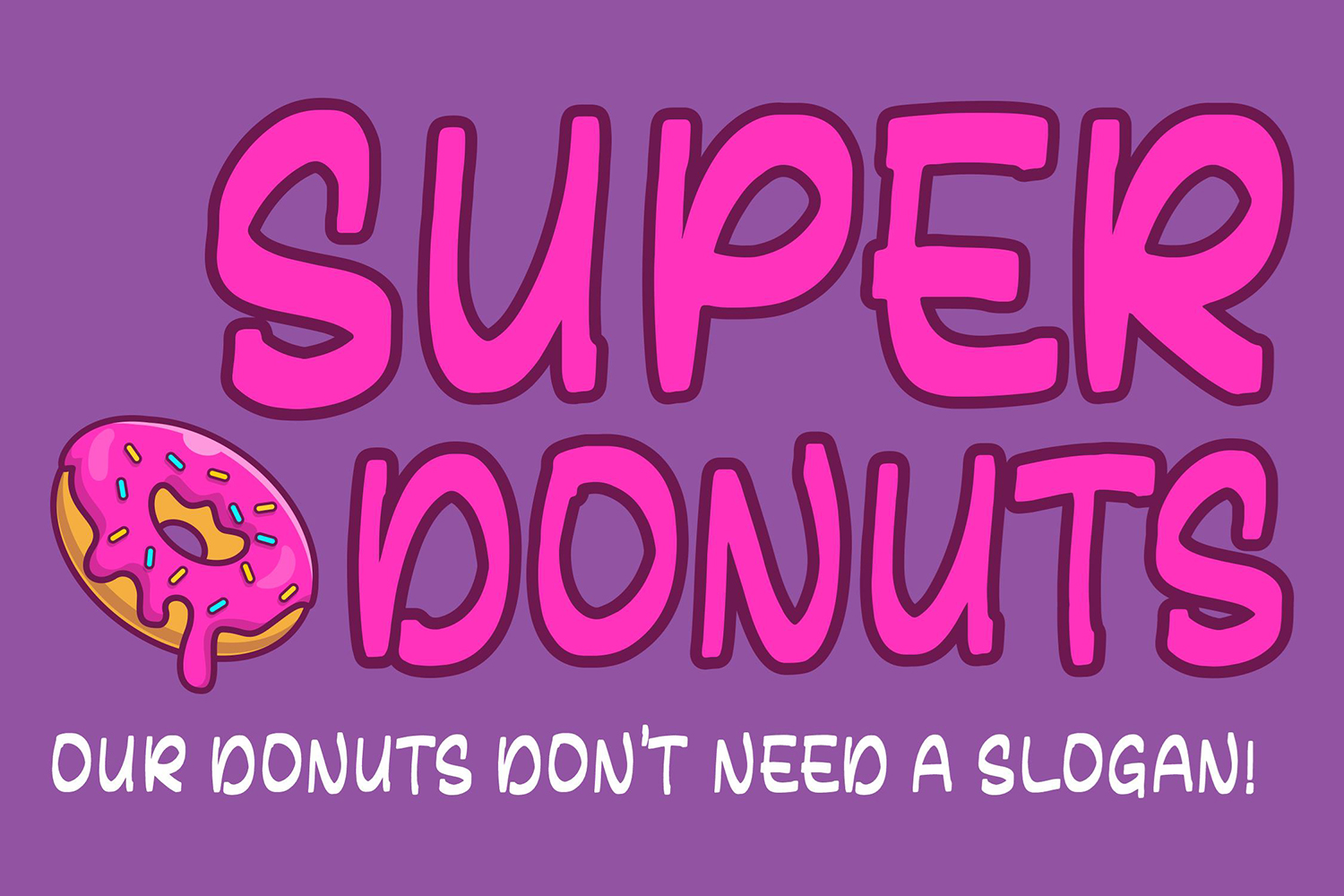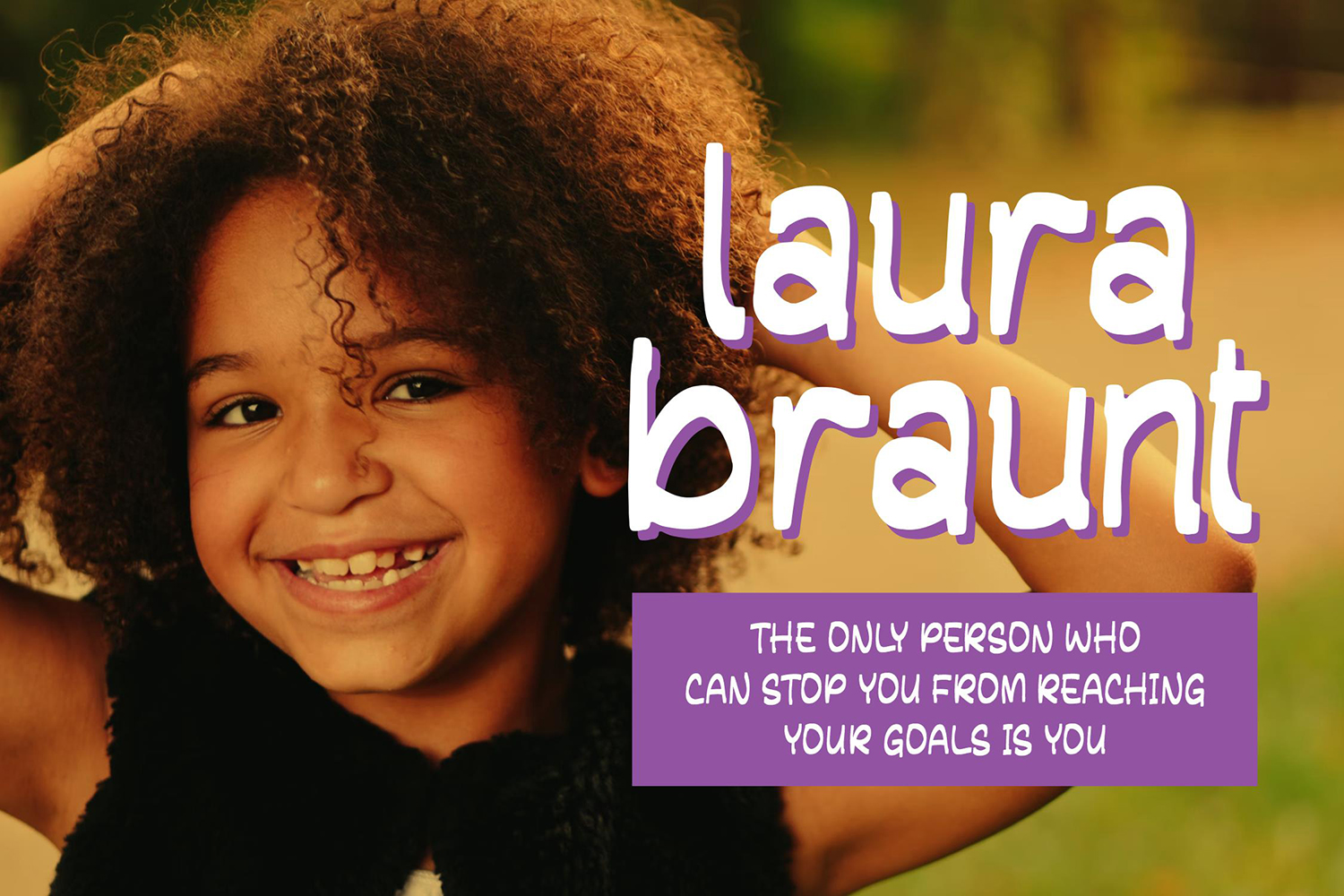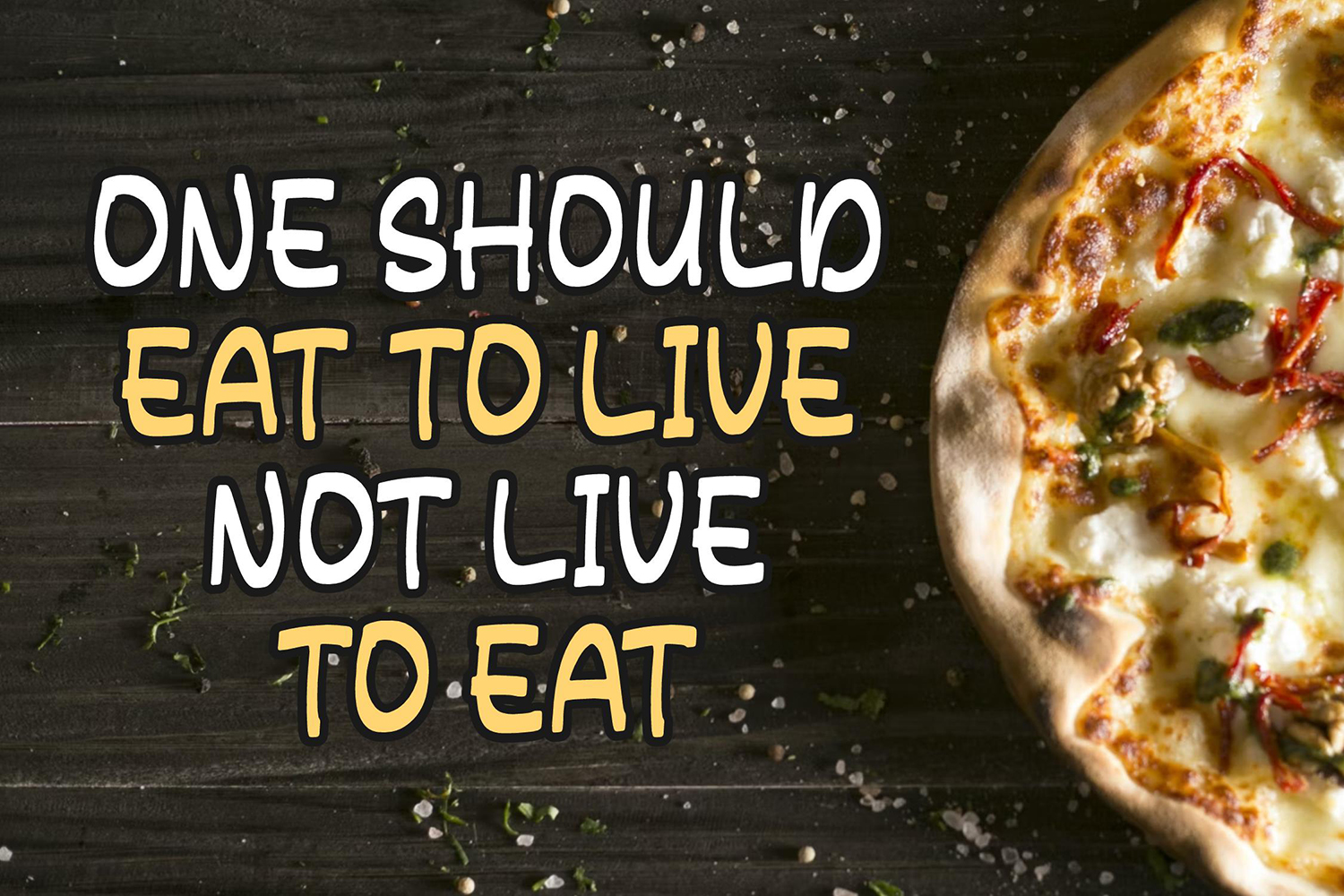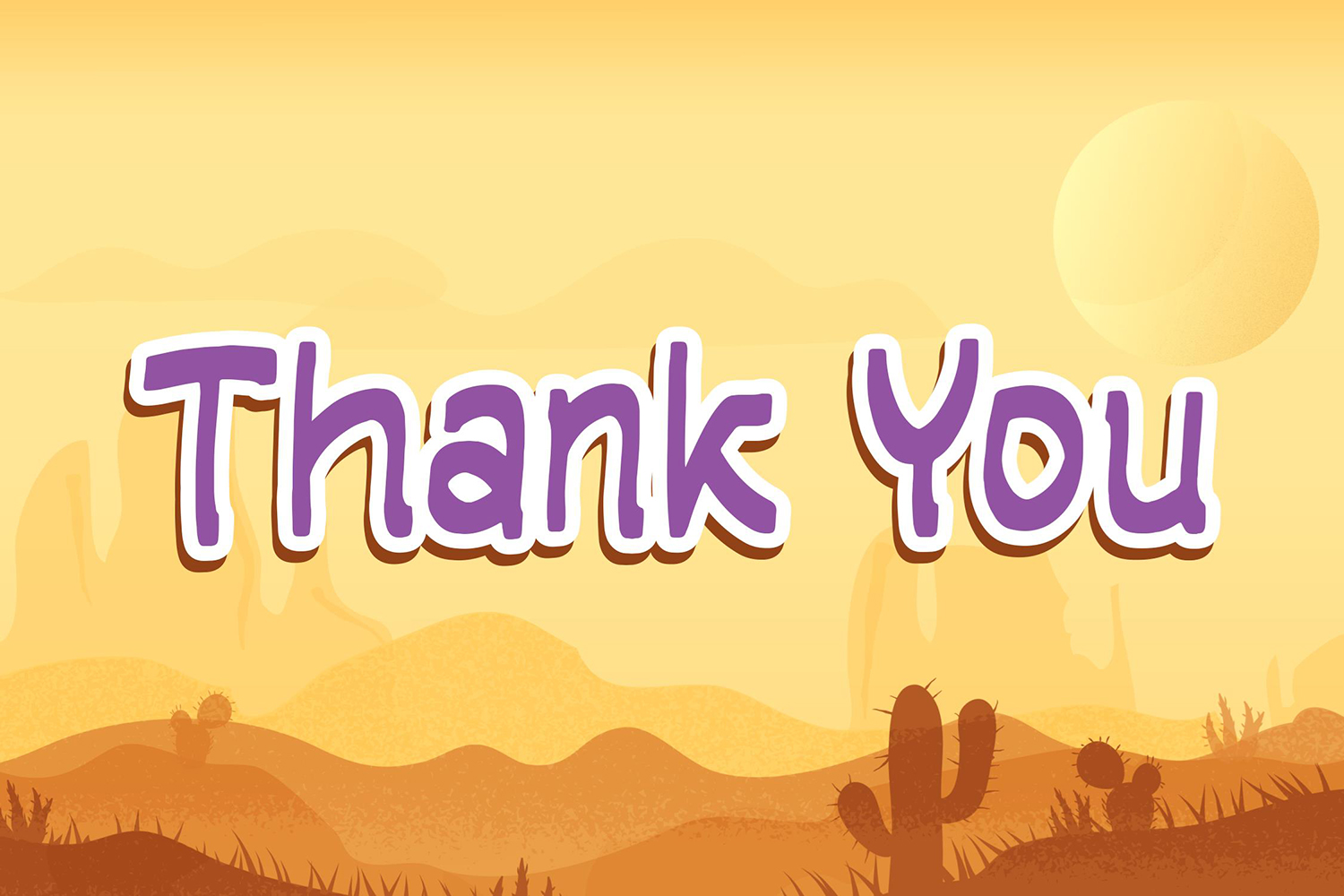
Harvest Cowboy Free Font
Harvest Cowboy Free Font is a playful and charming handwritten font that evokes the spirit of the wild west. With its rough-hewn edges and bold strokes, it’s the perfect choice for creating rustic and authentic designs. Whether you’re designing a logo for a farm-to-table restaurant or a label for homemade jam, this font will add a touch of down-home charm to your project.